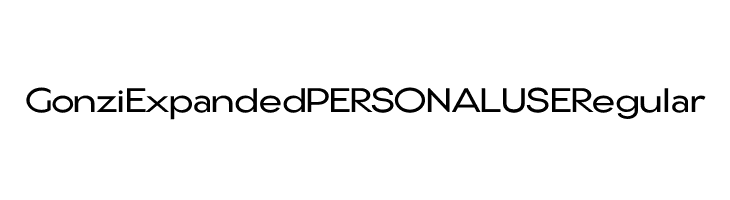
A bold, expanded font with geometric shapes and clean lines.
A bold, italicized, and expanded font with a modern and dynamic style.
A modern, expanded, and geometric font with a light weight.
A modern, expanded, light italic font with a sleek and elegant design.
A modern, expanded typeface with a geometric and clean design.
A modern, expanded italic font with a sleek, geometric design.
A sleek, ultra-thin font with a modern, minimalist design.
A sleek, modern, thin italic font with expanded letterforms and minimal contrast.
A bold, playful font with rounded edges and a whimsical style.
A bold, playful, and italic font with smooth curves and a dynamic style.